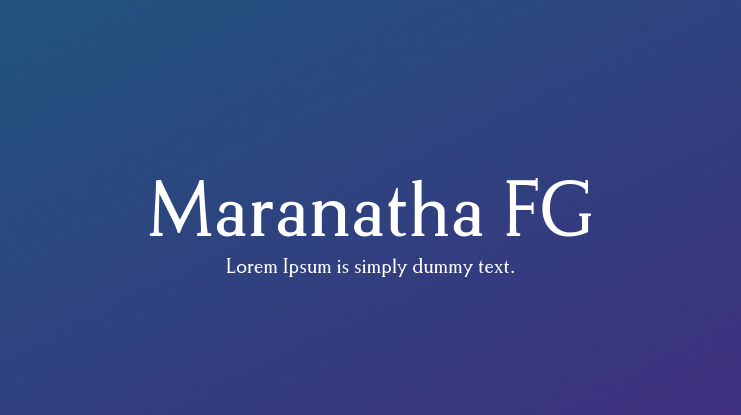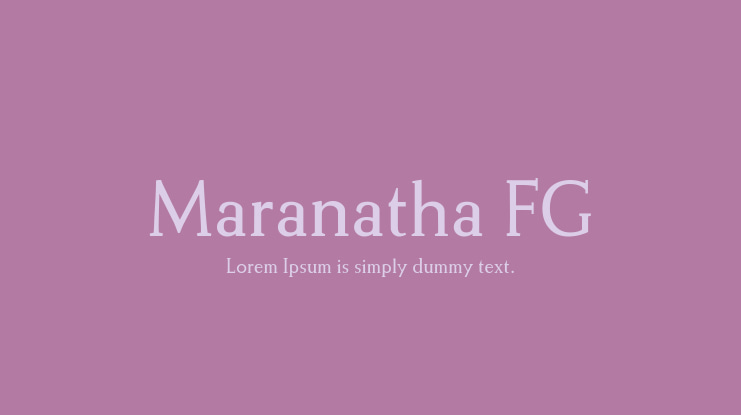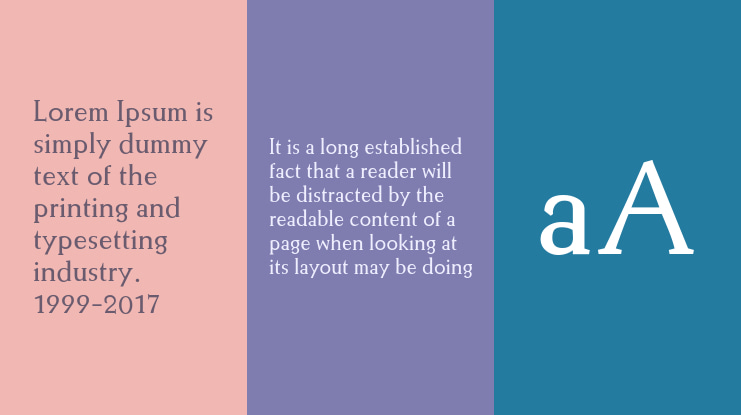
Maranatha FG Font
Andreas Höfeld via Rudolf Koch
Maranatha FG is a renewal of Rudolf Koch's Marathon font. As yet, it comes in just one weight: Maranatha Book. Marathon was cut by renowned typograph Rudolf Koch in several sizes. This font tries to emulate the size that was used in the 1951-1993 Protestant German hymn book ("Evangelisches Kirchengesangbuch" EKG) in many Antiqua editions. It contains a number of ligatures, some of which were used, not quite consistently, in that hymn book, namely the tz, which can be found on the } closing braces. Use this font with kerning turned on, which also gives you automatic ch and ck ligatures. There is also a long s and the (irregular) ft ligature on {.This font comes under the SIL Open Font License 1.1, encouraging both free use and further improvements. For details see https://scripts.sil.org/OFL. The reserved name is "Maranatha", originally a liturgical phrase of early Christianity, as in 1Cor 16:22, fitting for a hymn book typeface.
Nachbau der Marathon von Rudolf Koch nach dem Evangelischen Kirchengesangbuch